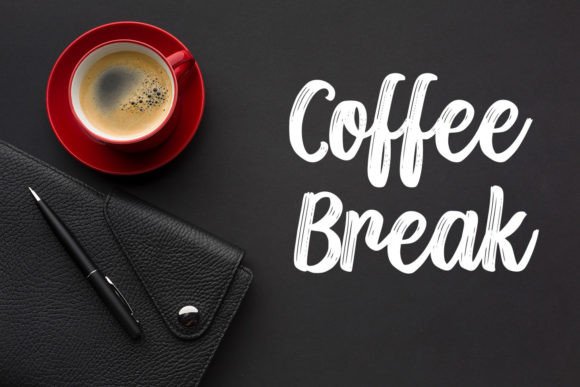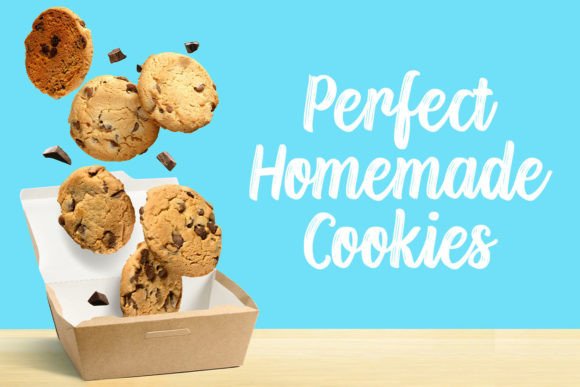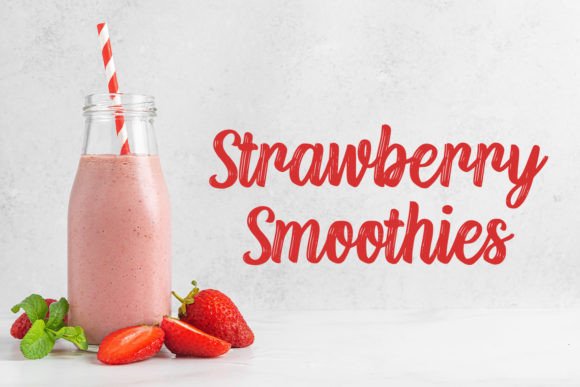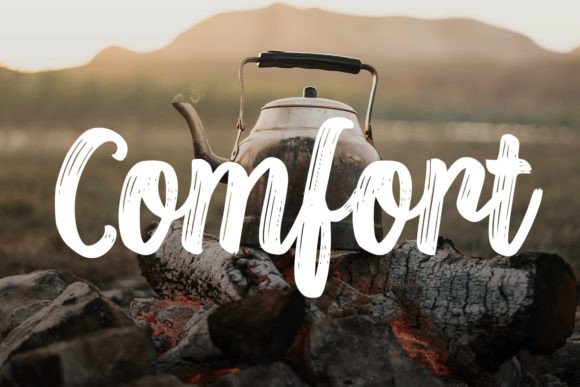
Introduction to Modistrack Font
Have you ever been working on a creative project, pouring your heart and soul into it, only to be stuck on finding the perfect font to give it that extra oomph? You scroll through countless options, but nothing seems to capture the essence of your design. That’s where the Modistrack Font comes in – a game-changing, high-quality design resource that’s about to revolutionize your creative process.
With its classy calligraphic influences and fresh, contemporary feel, the Modistrack Font is the perfect addition to any design project. Whether you’re working on a brand identity, a marketing campaign, or a personal project, this exquisite handwritten font is sure to elevate your design to new heights. And the best part? It’s available for free download, making it an accessible design resource for creatives of all levels.
As a valuable asset for designers, the Modistrack Font offers a transparent background, allowing for seamless integration with any design element. Its versatility and high-quality design make it a must-have for any creative project, ensuring that your work stands out from the crowd and leaves a lasting impression.
Key Features of Modistrack Font
- High-quality design resource with a unique, modern aesthetic, perfect for creative projects that require a stylish and professional look.
- Features a transparent background, allowing designers to easily integrate it into their work without any distractions or unwanted elements.
- Designed to be highly legible and readable, even at small sizes, making it an excellent choice for a wide range of applications, from print materials to digital displays.
- Includes a comprehensive character set, covering a wide range of languages and symbols, making it a valuable resource for designers working on international projects.
- Supports high-resolution displays, ensuring that the font remains crisp and clear even at high zoom levels or in large-format prints.
Honest Review: Modistrack Font
I recently had the chance to work with the Modistrack Font, and I must say it’s been a game-changer for my creative projects. This font is a high-quality design resource that’s perfect for anyone looking to add a touch of modernity to their work.
- ✨ High-quality design that’s perfect for modern creative projects
- ✨ Great for designers who need a font with a transparent background
- ⚠️ Limited font styles available
- ⚠️ Not ideal for projects that require a lot of customization
Overall, I’m really impressed with the Modistrack Font. It’s a great resource for designers who need a high-quality font that’s easy to use and customize. I would definitely recommend it to anyone looking for a new design resource.
Tips for Getting the Most Out of Modistrack Font
Use the Modistrack Font in conjunction with a high-quality image or a transparent background to create a visually appealing design. Experiment with different font sizes and styles to add depth and interest to your creative project.
Does the Modistrack Font support transparent backgrounds?
Yes, the Modistrack Font supports transparent backgrounds, making it ideal for use in creative projects where a transparent or semi-transparent design is desired. However, please note that the font’s transparency is dependent on the design application and operating system being used.